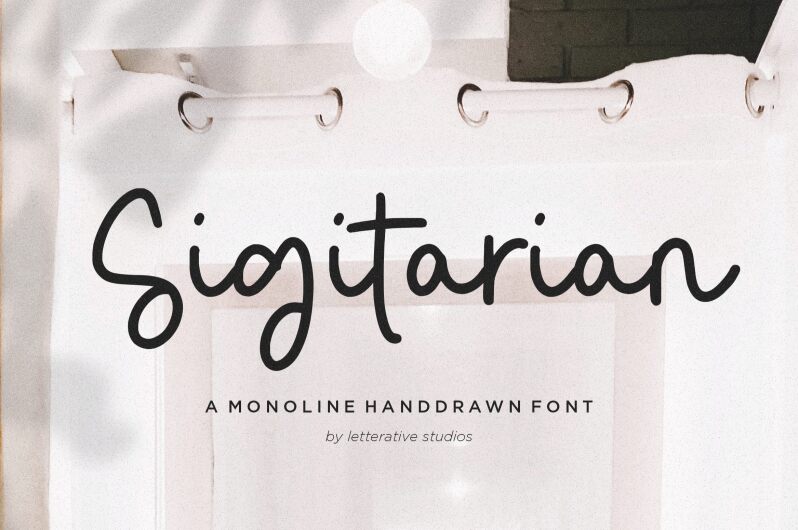
Sigitarian
Sigitarian font by Letterative Studio is a free handwritten font that brings a distinctly personal touch to any project. Casual and fluid, this approachable typeface provides a smooth design that seamlessly fits both formal and informal designs. And with its modern style, it allows for contemporary applications that target today’s audiences.
Given its welcoming effect, Sigitarian is suitable for branding designs including logos for packaging projects or business cards. But readers can equally enjoy its casual effect when it’s used in typography artwork or as part of personal projects like CD covers and stickers where fonts are the main attraction or texts.